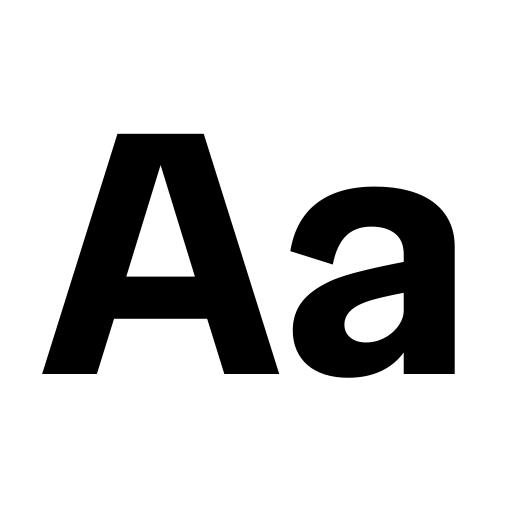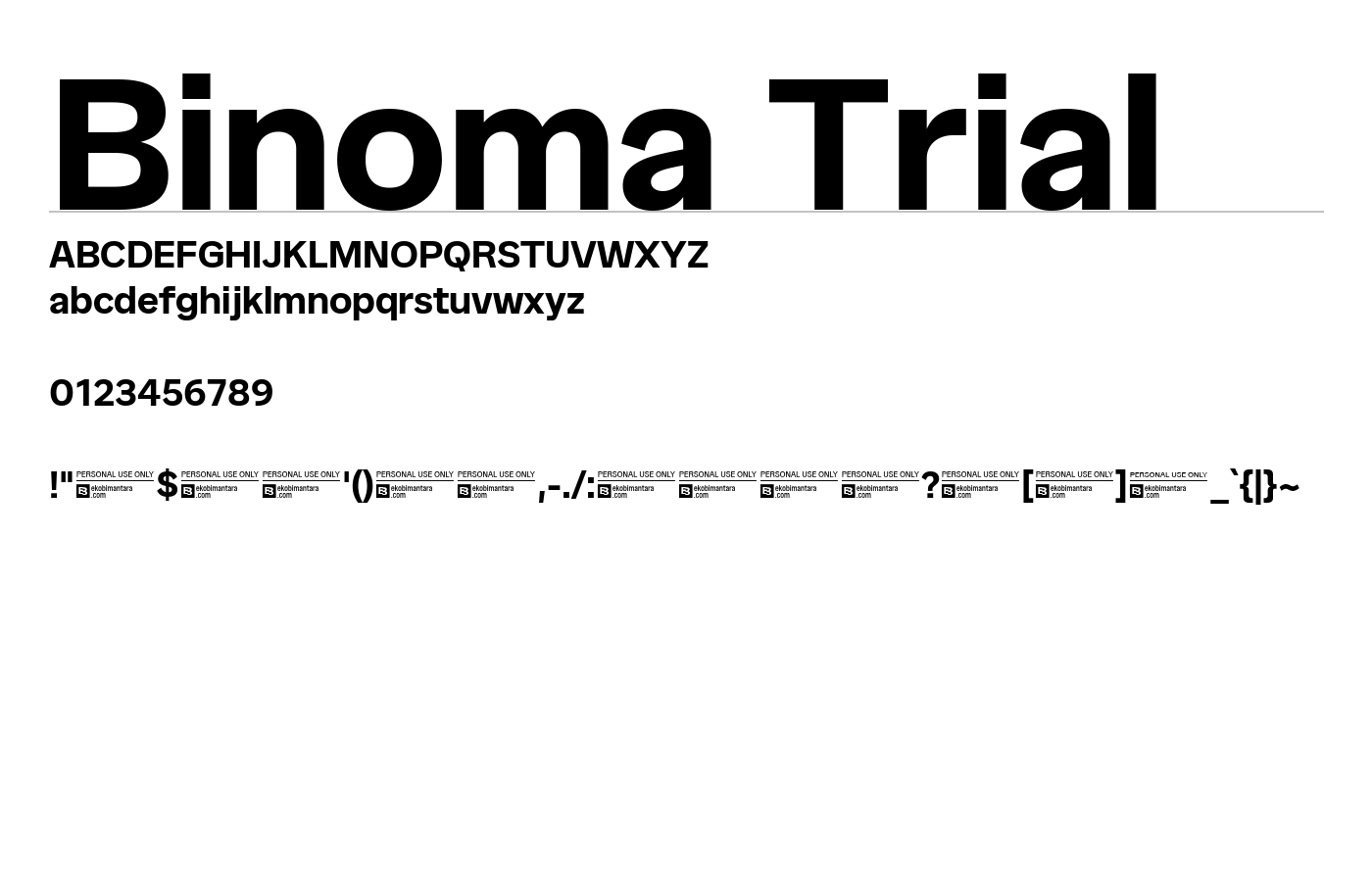
Binoma Trial is a bold, modern sans serif font with a clean and sturdy design, characterized by its strong weight and consistent stroke width. Its large x-height and straightforward letterforms make it highly legible and ideal for impactful headlines, branding, and digital use. This font conveys confidence and clarity, making it perfect for contemporary brands and editorial projects that require a clear, professional presence.
Binoma Trial Font
About Binoma Trial Font
| Font family | Binoma Trial Font |
| Designer | Eko Bimantara |